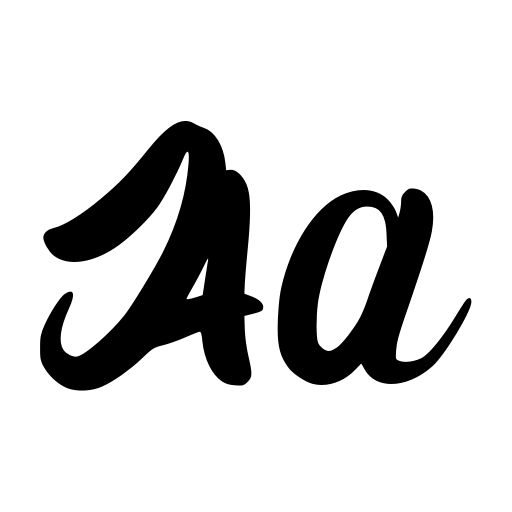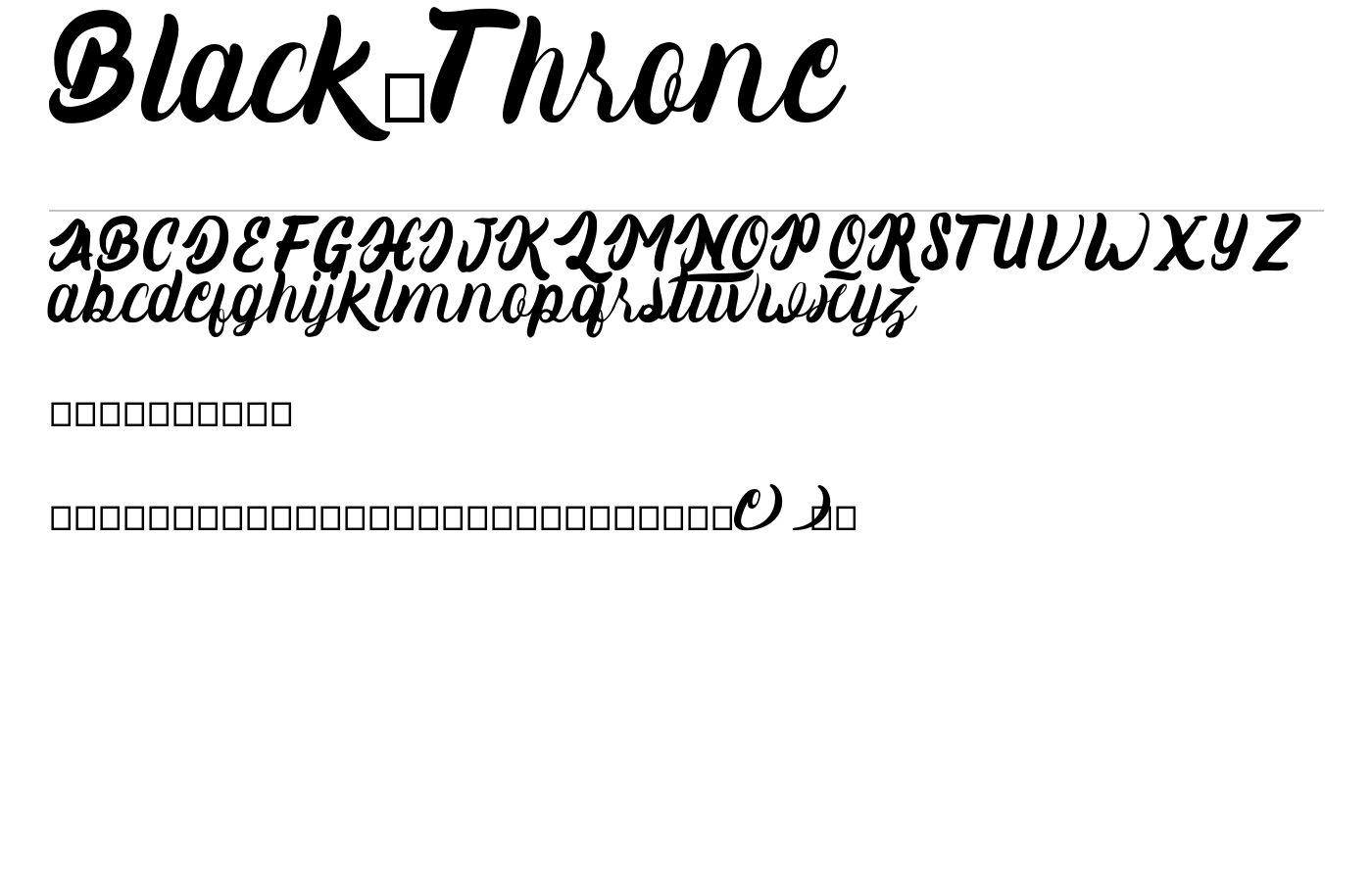
Black_Throne is a bold, script-style font with a smooth, flowing design that combines elegance with a casual touch. Its thick strokes and slightly condensed letterforms give it strong presence and readability, making it perfect for eye-catching headlines, branding, and invitations where a stylish yet approachable feel is desired. This font works well for creative projects that want to convey personality and charm without sacrificing clarity.
Black_Throne Font